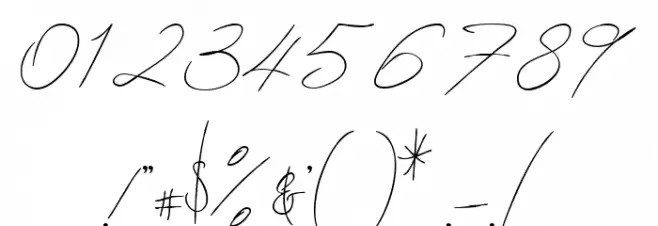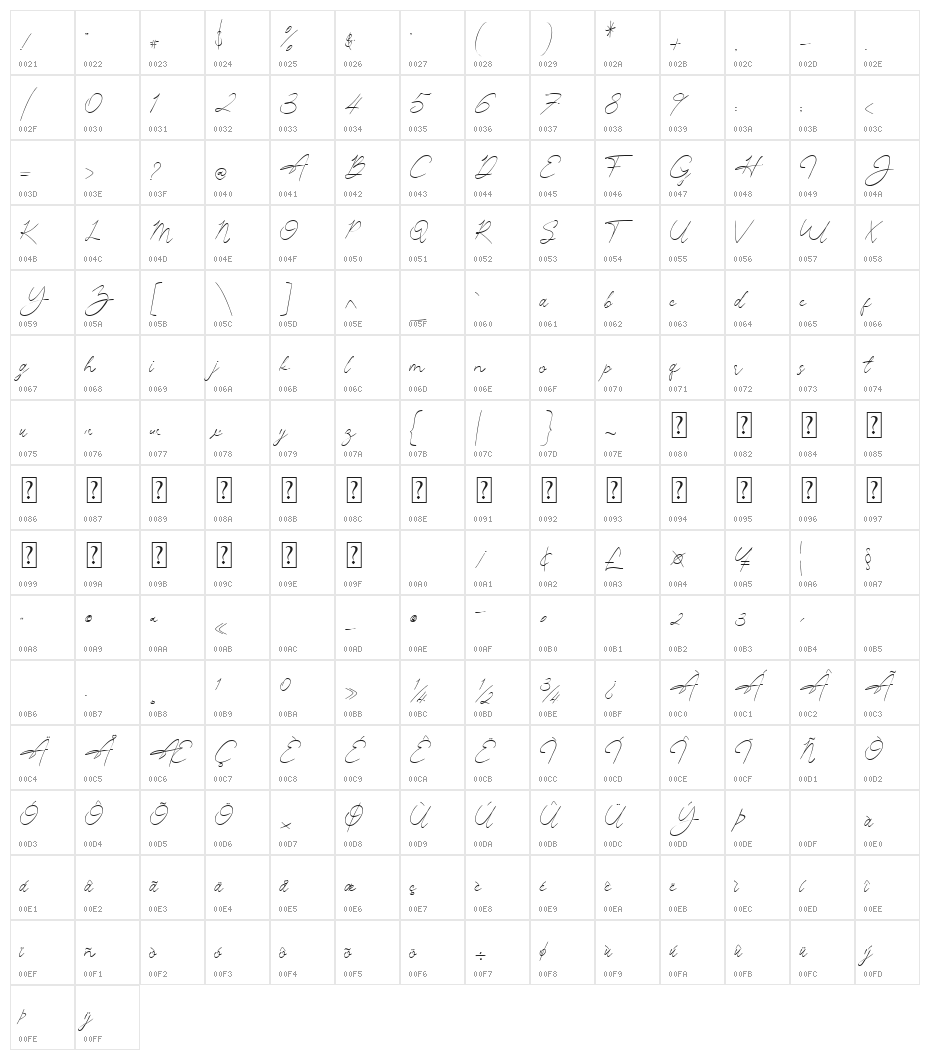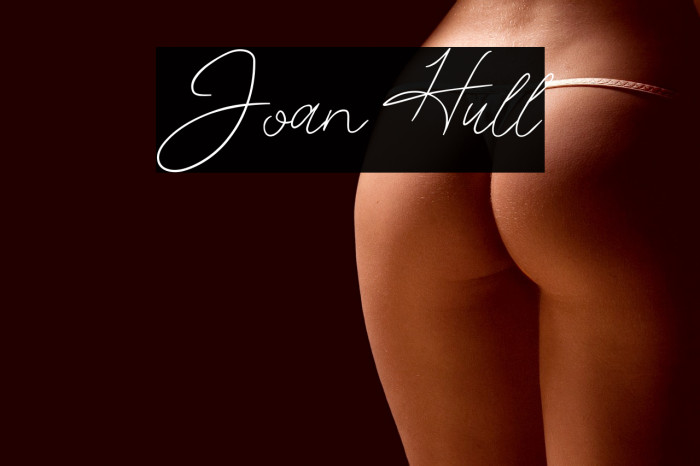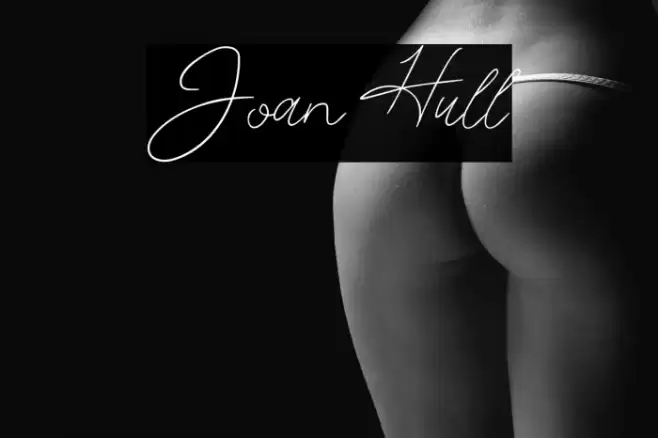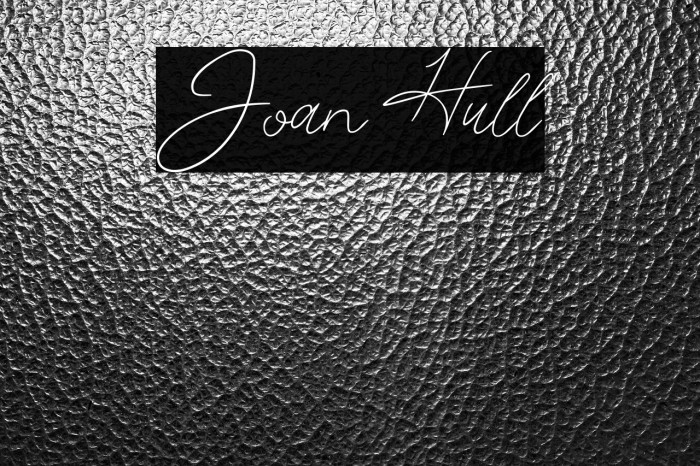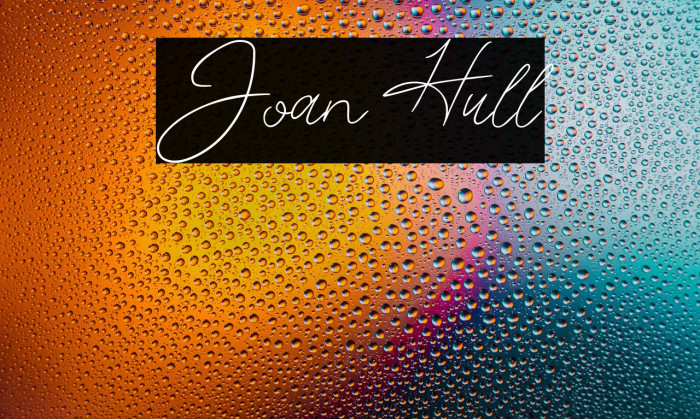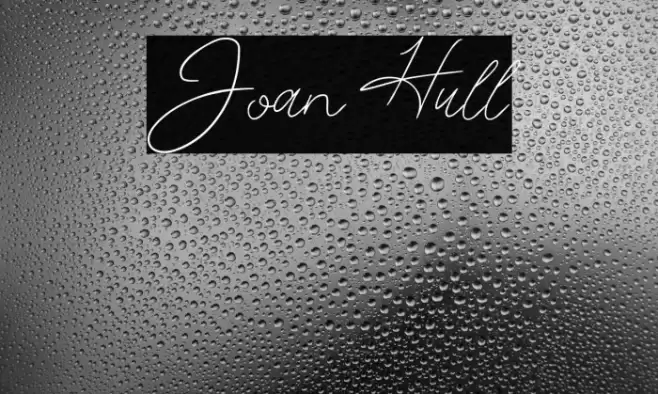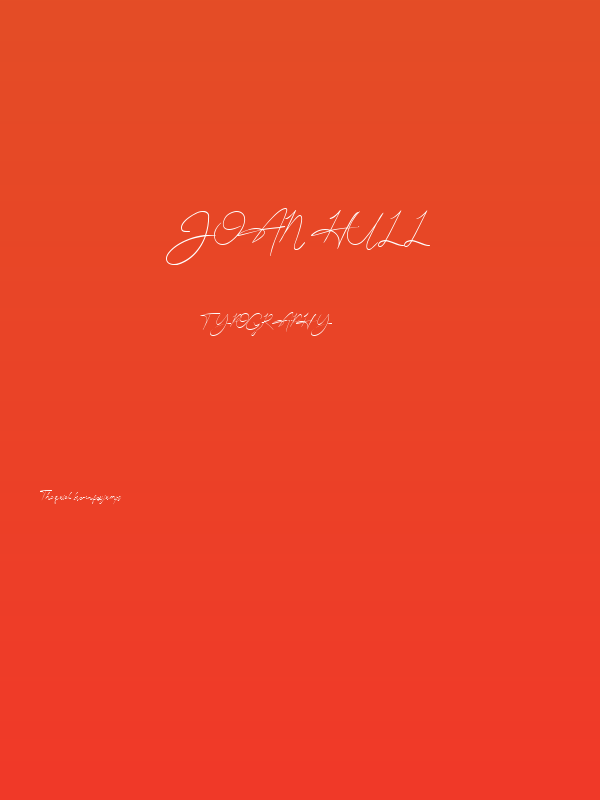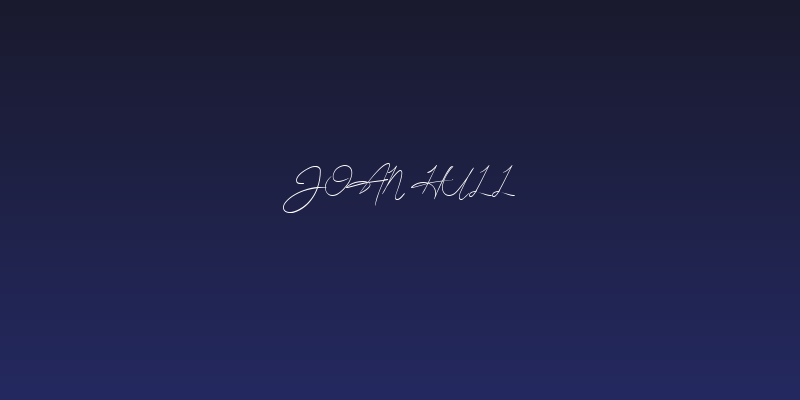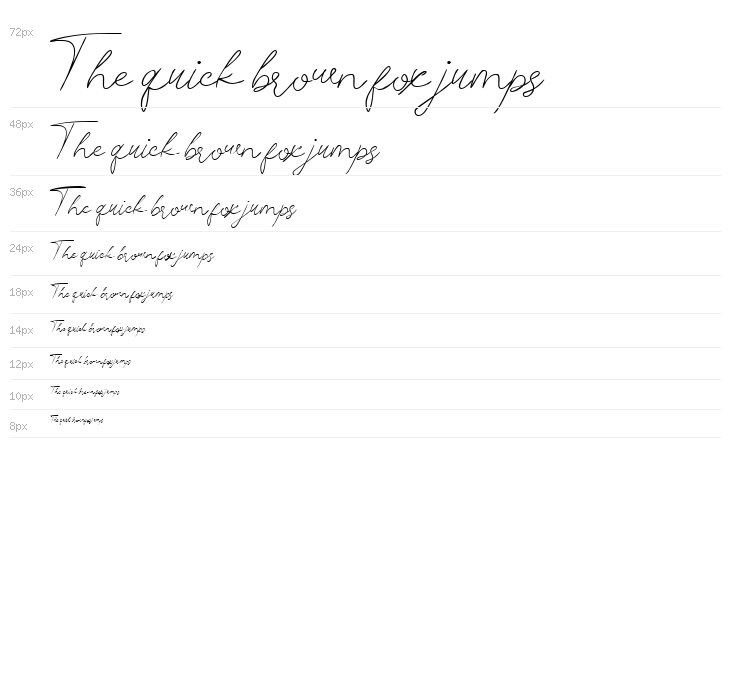
Joan Hull Font
Joan Hull Description
This elegant script font features a flowing, cursive style that mimics natural handwriting. The characters are connected, giving it a seamless and fluid appearance. The strokes are thin and delicate, with a consistent line weight that adds to its graceful aesthetic. The uppercase letters are slightly larger and more ornate, while the lowercase letters maintain a simpler, more understated look. The numerals and special characters are crafted with the same attention to detail, ensuring a cohesive look across all glyphs. This font exudes sophistication and charm, making it ideal for projects that require a personal touch.
| Proposed Projects | Ideal for wedding invitations, greeting cards, personal branding, and elegant stationery. |